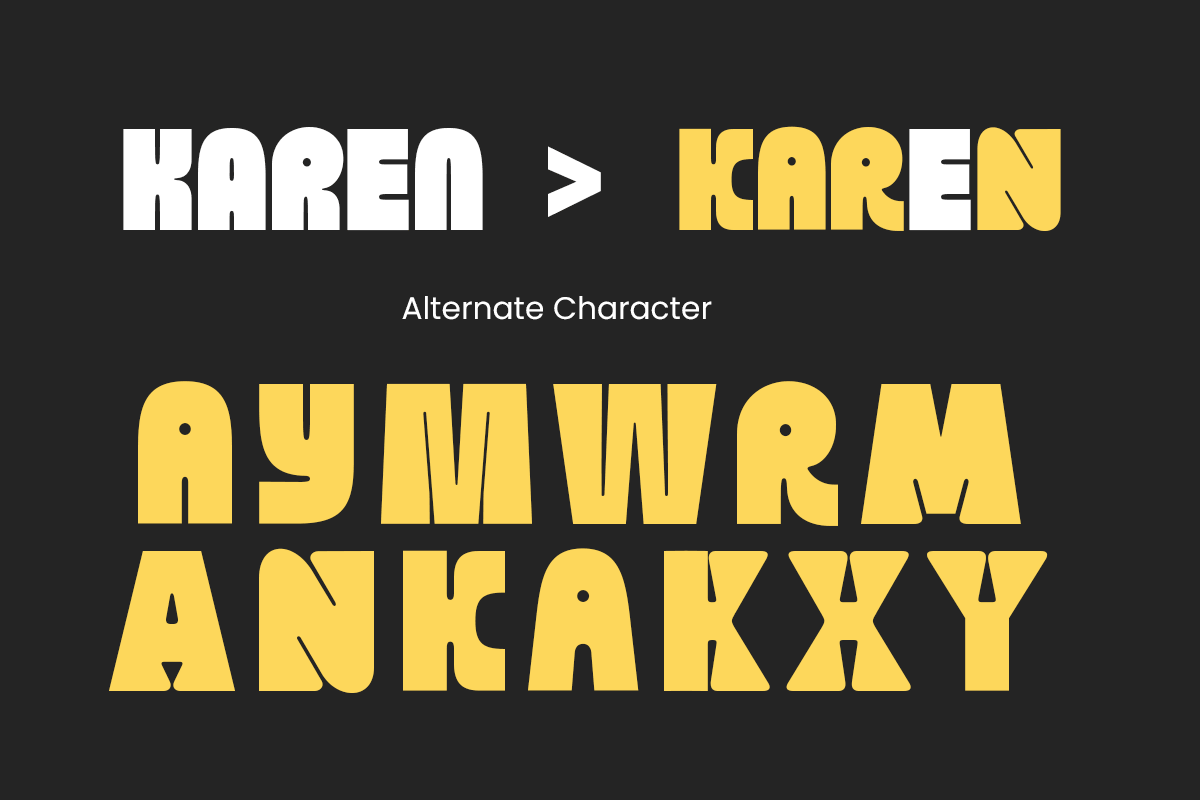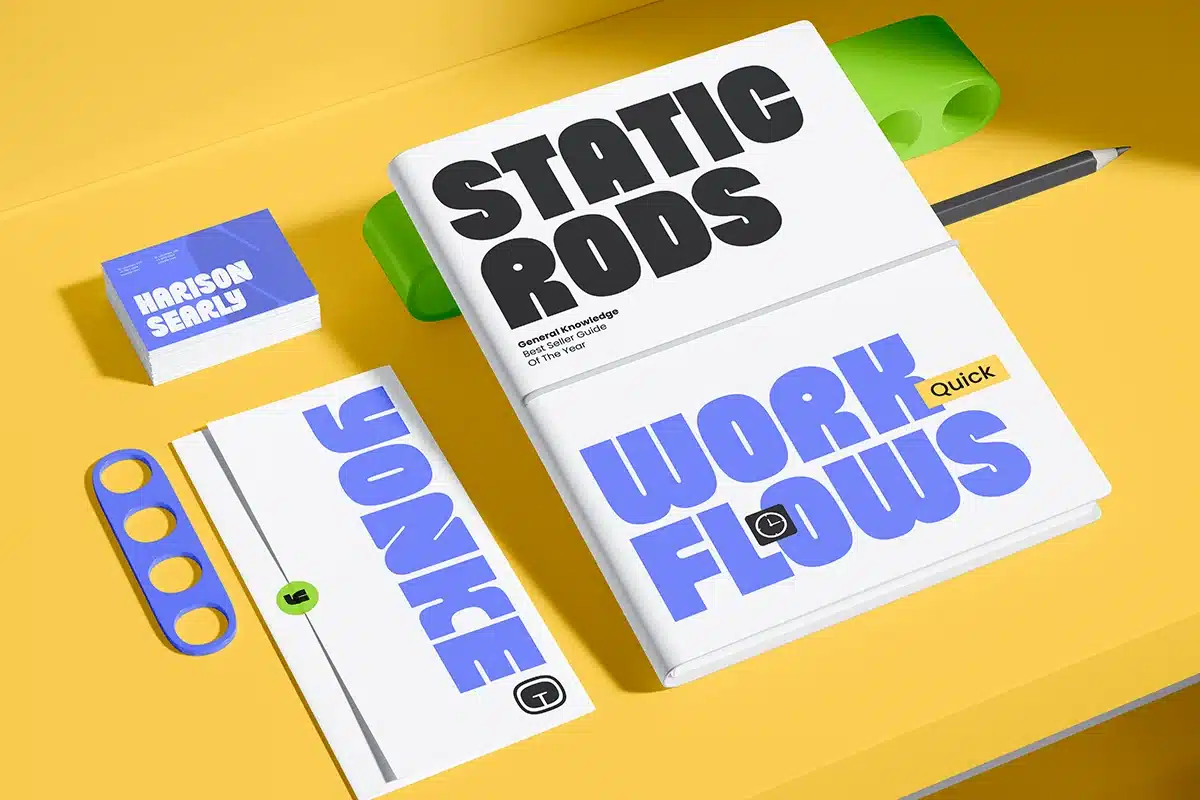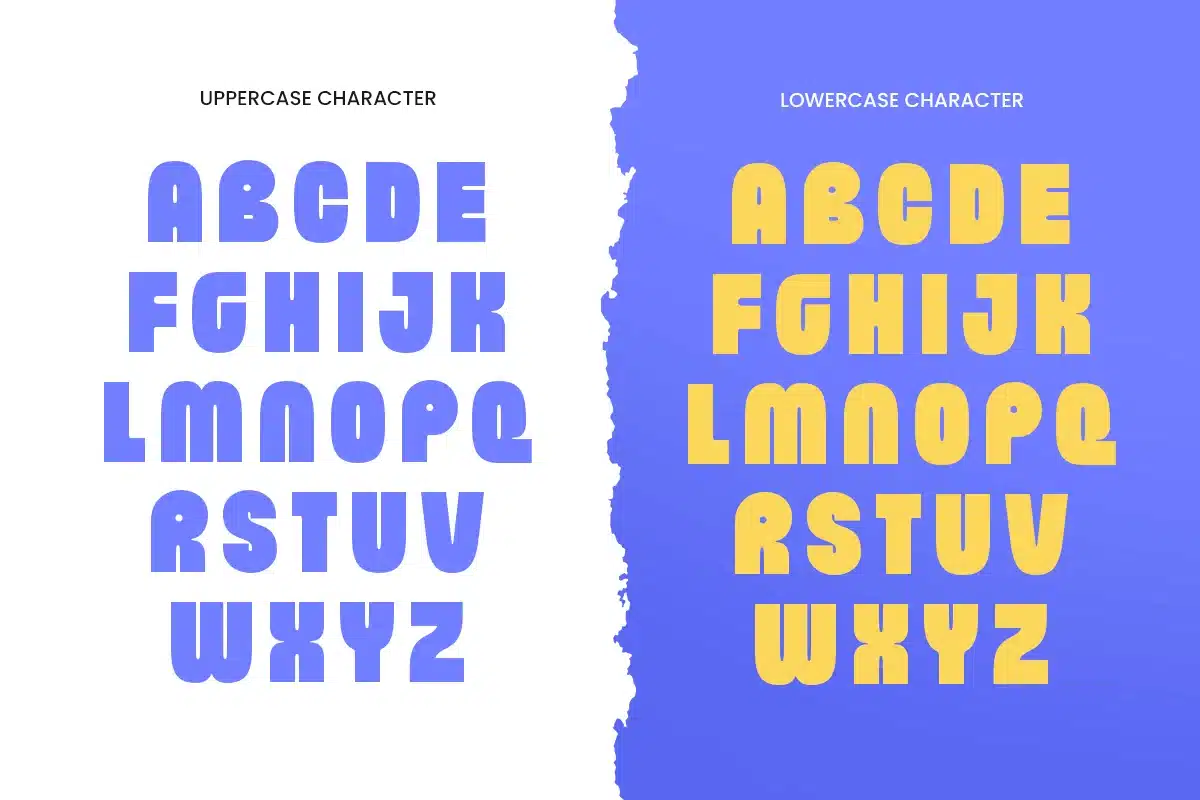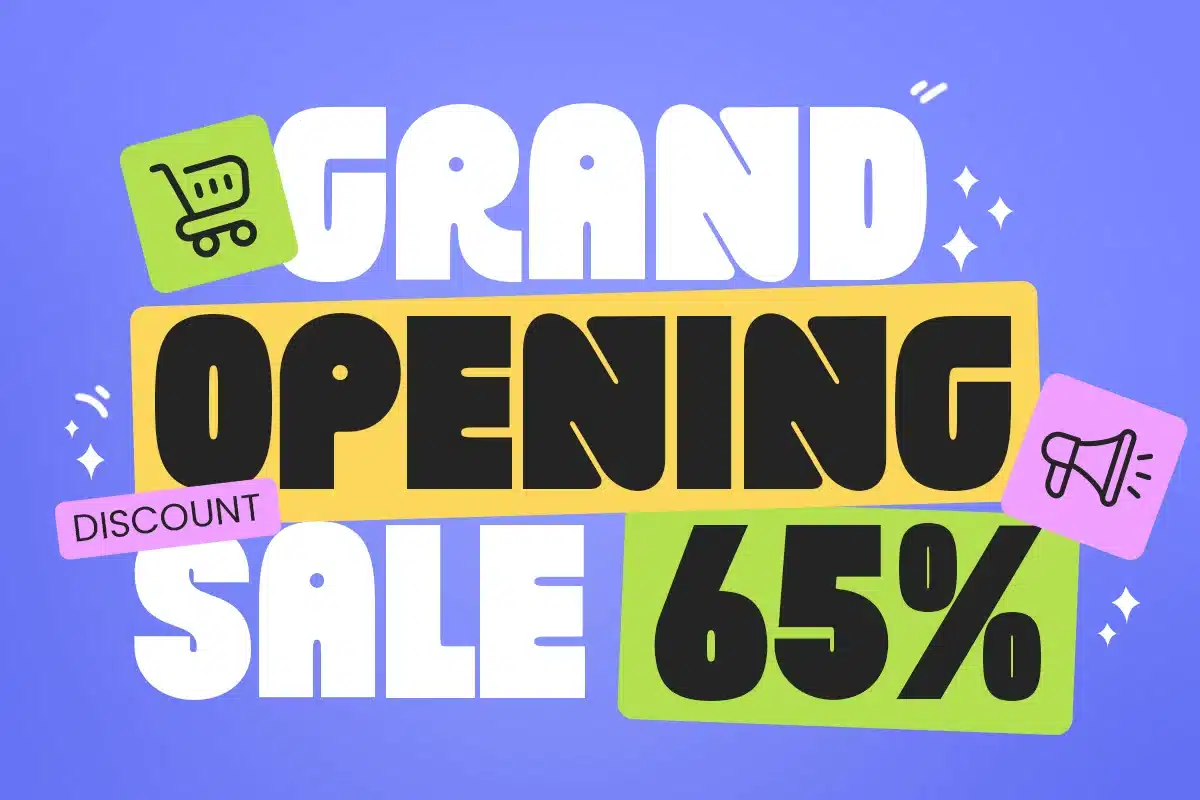
Ranky – Bold Display Sans Serif Logo Font
RANKY is a unique display sans serif logo font designed to bring bold clarity and modern character to your typography. With clean sans serif structure, striking proportions, and a confident visual rhythm, this typeface creates a fresh contemporary tone that feels powerful, memorable, and instantly brand-ready.
Built for logo-focused and headline-driven design, RANKY works beautifully across wordmarks, brand identity systems, posters, website headers, packaging, labels, signage, presentations, social media graphics, and promotional visuals. Its display-driven form gives every composition a strong visual presence while maintaining readability across both digital and print layouts.
Whether you’re building a startup identity, crafting modern product branding, designing bold campaigns, or creating sleek editorial-style headlines, RANKY provides a versatile sans serif foundation that makes your typography feel sharp, stylish, and full of unique personality.
Inspiration Behind RANKY
RANKY is inspired by contemporary branding typography and modern display sans serif design—where bold structure, clean geometry, and distinct visual rhythm shape memorable identity systems. The design focuses on clarity, uniqueness, and confident presence to support logos and headlines with a sleek, professional edge.
RANKY Font Features:
- Unique display sans serif letterforms optimized for logo and branding design
- Bold clean structure for modern visual identity and strong headlines
- High readability for posters, packaging, and promotional layouts
- OpenType features for polished professional typesetting
- Logos, wordmarks, and modern brand identity systems
- Posters, campaigns, and headline-driven promotional design
- Packaging, labels, and product branding visuals
- Website headers, social media graphics, and digital ads
- Presentations, signage, and sleek marketing materials
Make your branding stand out with RANKY—a unique display sans serif logo font built for bold modern impact. ✨